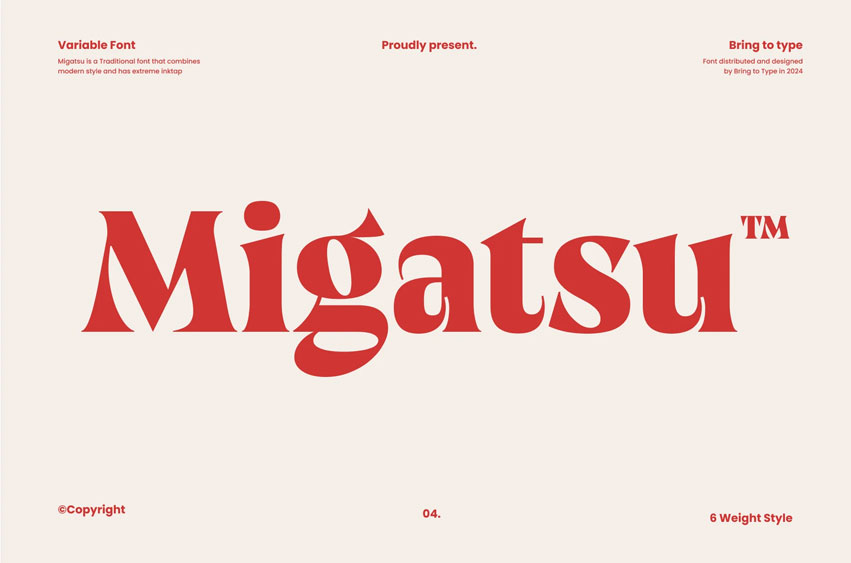
Migatsu Font
Migatsu Font is a sans serif font that is bold and has somewhat a modern look to it.
The forms are rather contrasting and provocative, particularly in the last part of the characters, which increase the contrast of the font and have a high degree of ink trap.